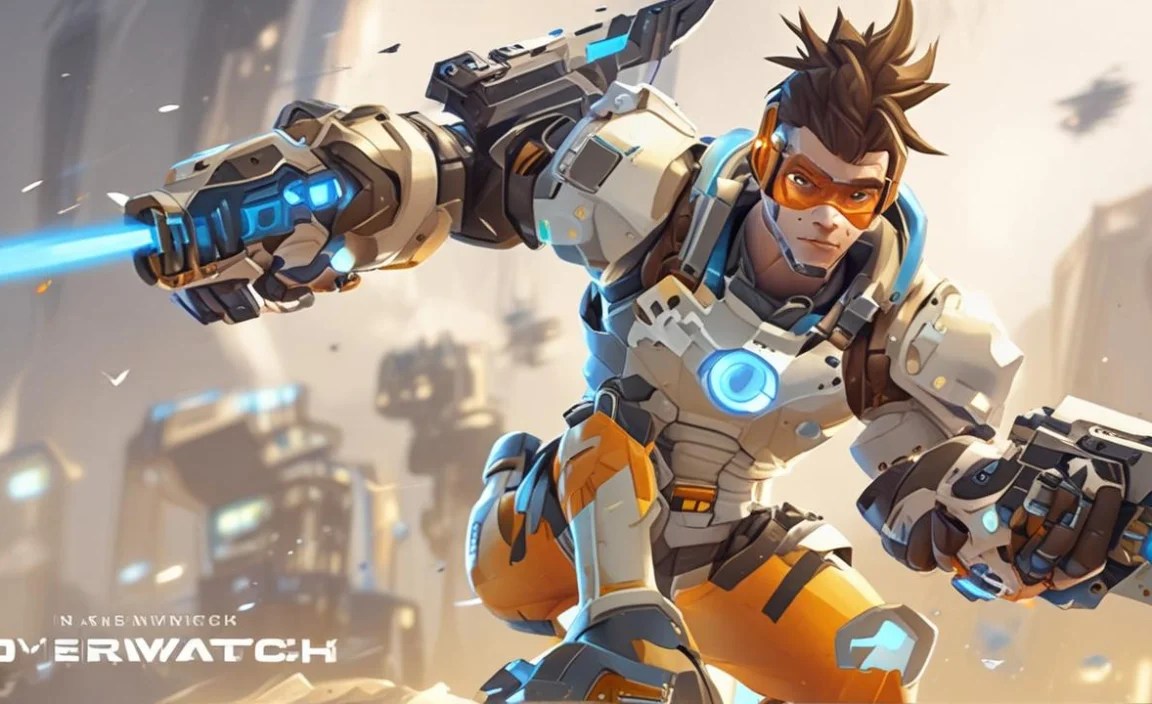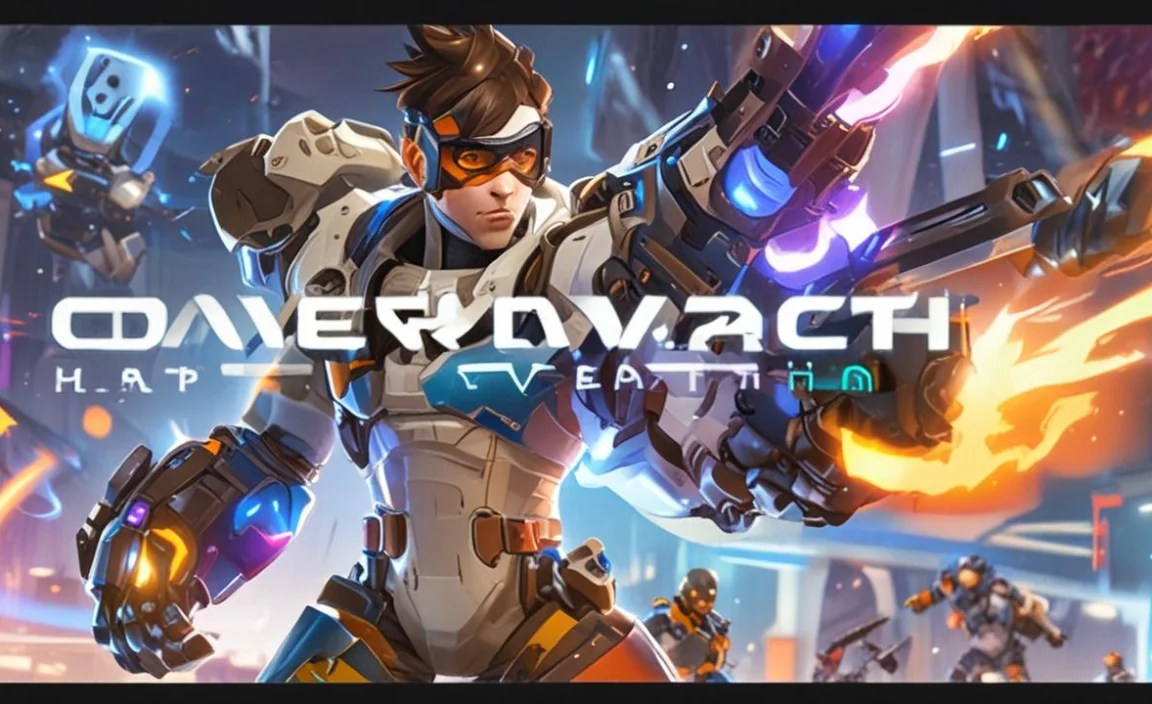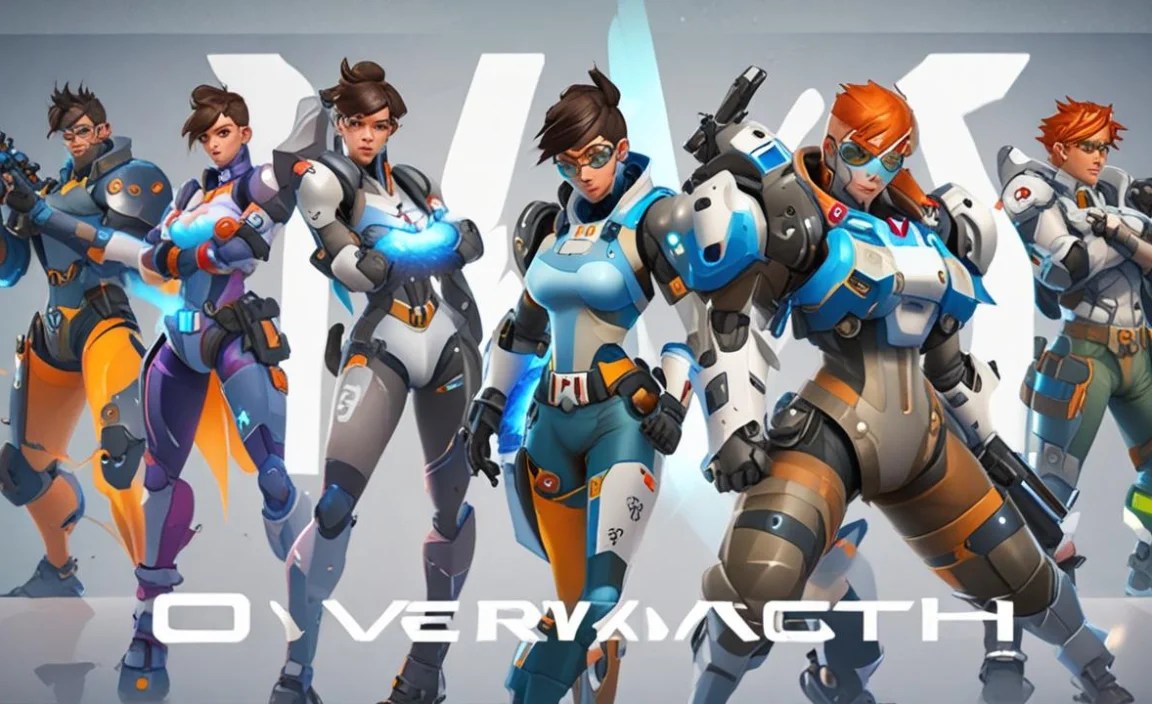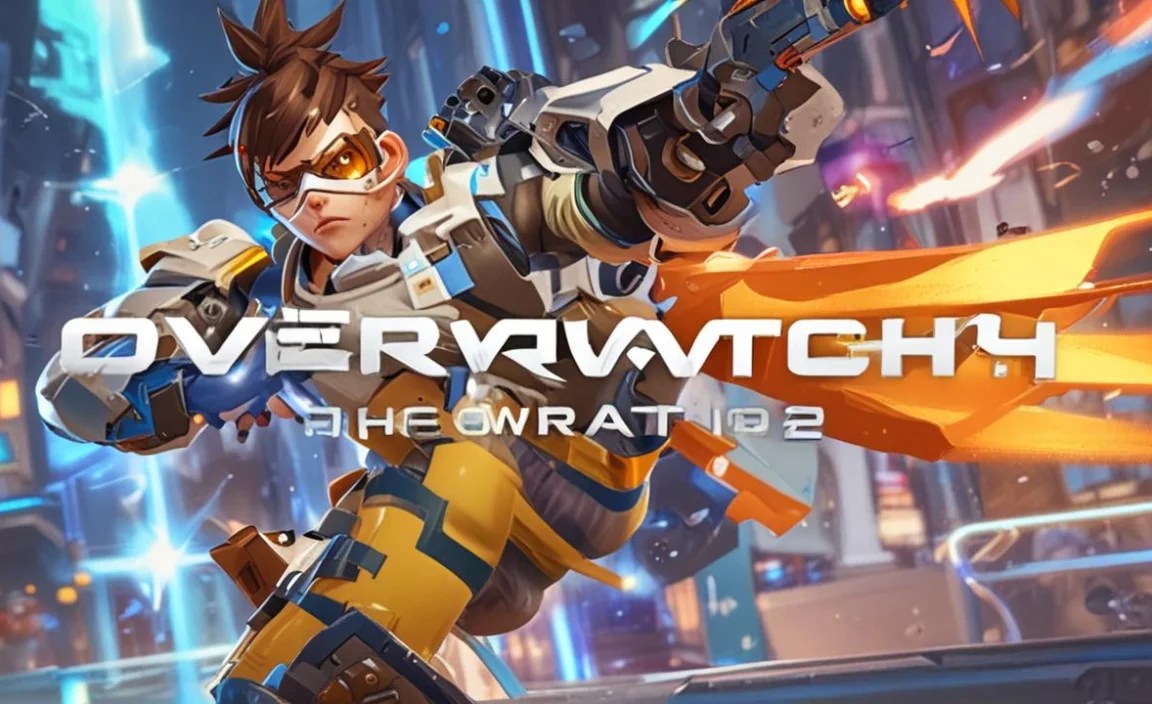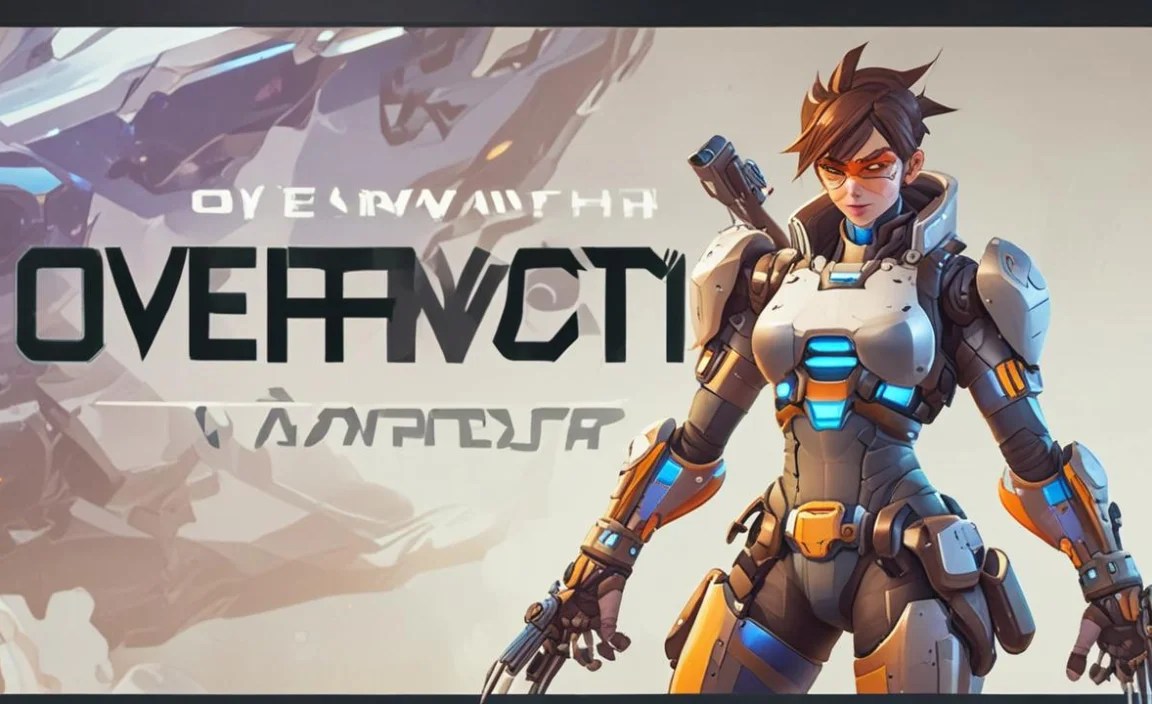
The Overwatch Font is a bold and dynamic typeface designed by SpideRay Fonts, released in August 2018. Inspired by the popular Overwatch video game by Blizzard Entertainment, this font captures the futuristic, bold look of the Overwatch logo and gameplay graphics.
The game’s logo, including the cover art for the Origins Edition of the game, showcases the hero Tracer and utilizes a specific geometric sans-serif font. The logo is believed to be inspired by Bank Sans Caps Bold EF, designed by Morris Fuller Benton and Günther Flake. Additionally, the text “Origins Edition” in the cover art is set using Big Noodle Titling Oblique, a font designed by James Arboghast.
Overwatch Font Information
| Name | Overwatch Font |
| Style | Fancy, Futuristic |
| Designer | SpideRay |
| Type | Display Font |
- Bank Sans Caps Bold EF
- Big Noodle Titling Oblique
Where Overwatch Font Is In Use
- Game logos: Used in the iconic Overwatch logo and promotional content.
- Banners: Displayed in Overwatch-related banners and posters.
- Gaming content: Featured in gameplay, sound effects, and text chat in the game.
- Branding: Often used in game mode logos for Apex Legends and other games like Fortnite.
- Merchandise: Seen on t-shirts, mugs, and other game-related merchandise.
- Character names: Applied to Overwatch character names, including Junker Queen, Tracer, and other favorite Overwatch characters.
- Content creation: Common in gaming YouTube channels, audio files, and video game trailers.
- Design projects: Used in the gaming industry’s logos, posters, and digital designs.
- Body Text: Pair with Geometric Sans fonts like Roboto or Open Sans to contrast the boldness of Overwatch Font.
- Headlines: For a futuristic and clean look, use Montserrat or Bebas Neue alongside the Overwatch Font.
5.What Are Some Good Font Alternatives To Overwatch Font?
Try using Aurebesh Font or Junior Star Font for a similar bold, futuristic feel.